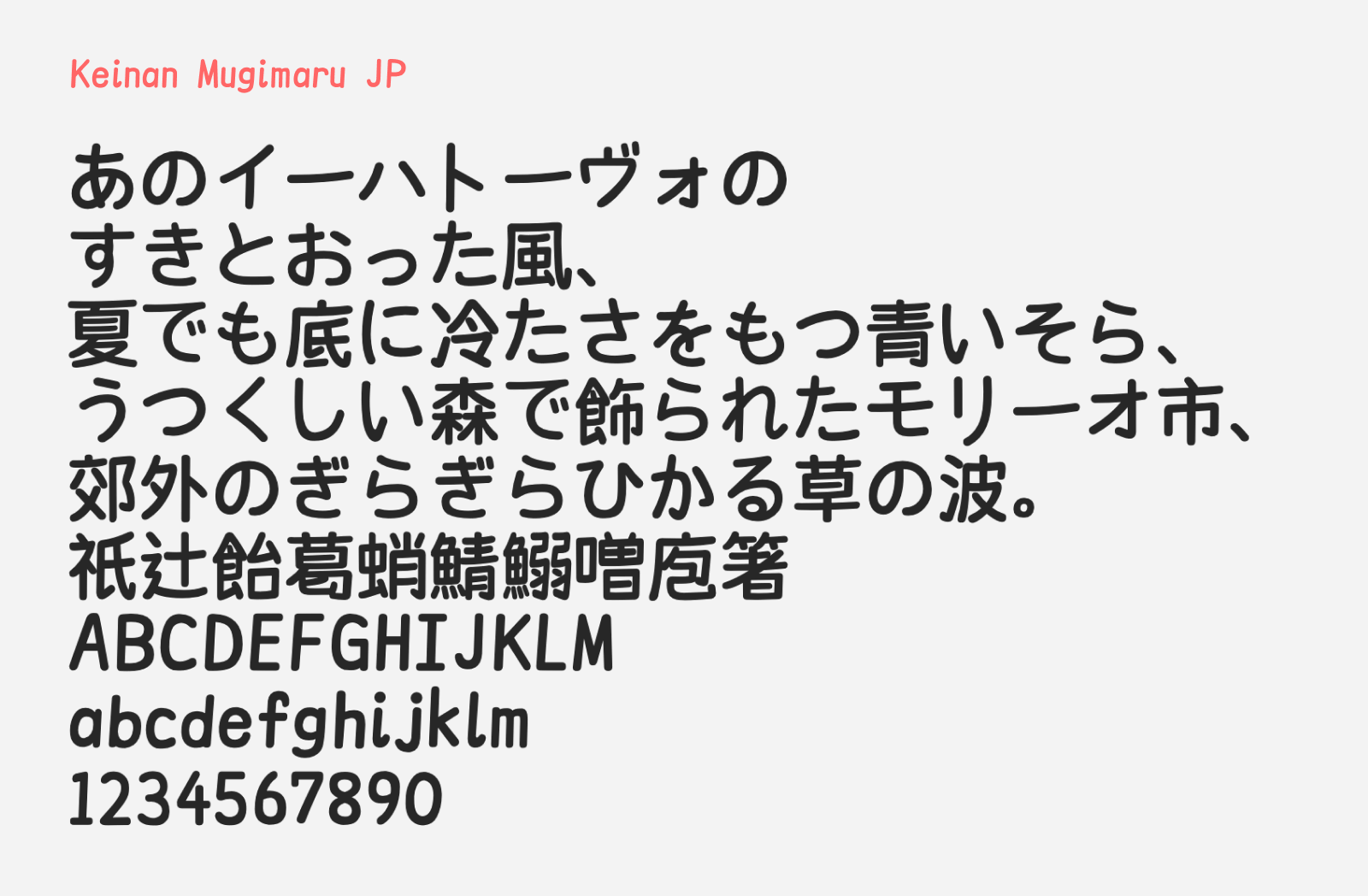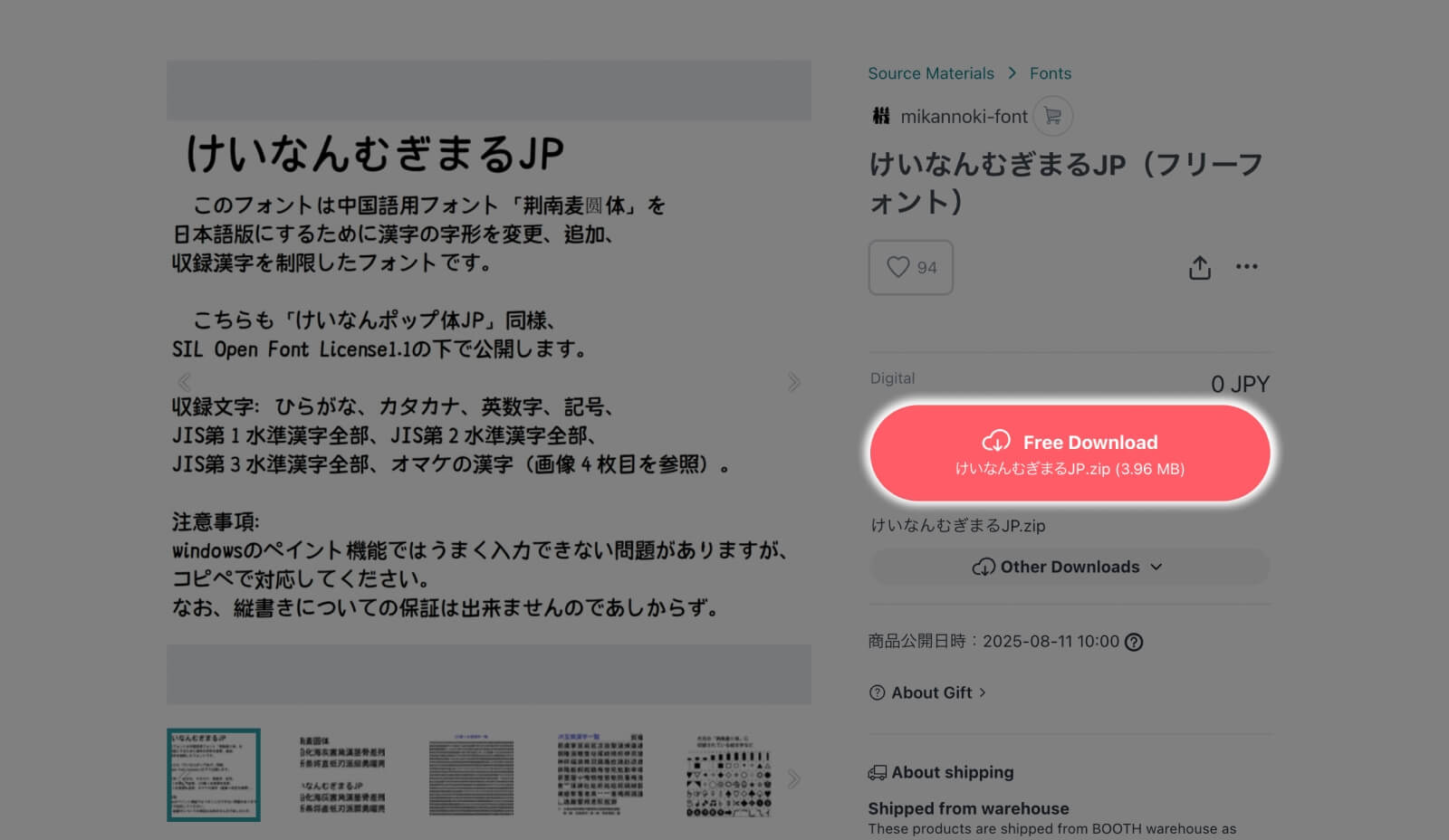
Keinan Mugimaru JP
Keinan Mugimaru JP (けいなんむぎまるJP) is a rounded handwriting style Japanese font you can download for free. It was created based on an open-sourced Chinese font, by modifying the kanji characters to better support the Japanese context. The design point of the font is that the stroke width are the same for all characters, and the corners and the stroke ends are rounded as well, making it a very tidy with a little bit of cuteness to it.
Keinan Mugimaru JP works great on designs for the young audiences for baby products and promotional materials, or as subtitle font for reels and video content. It supports your standard Japanese characters with kanji support up to JIS Level 3 and a little bit more. You can download this font for free and be used on commercial projects.
- Hiragana and Katakana
- Kanji (JIS Level 1 + Level 2 + Level 3++)
- Alphanumerics
- Latin, Cyrillic and Simplified Chinese script
- Symbols and Punctuations